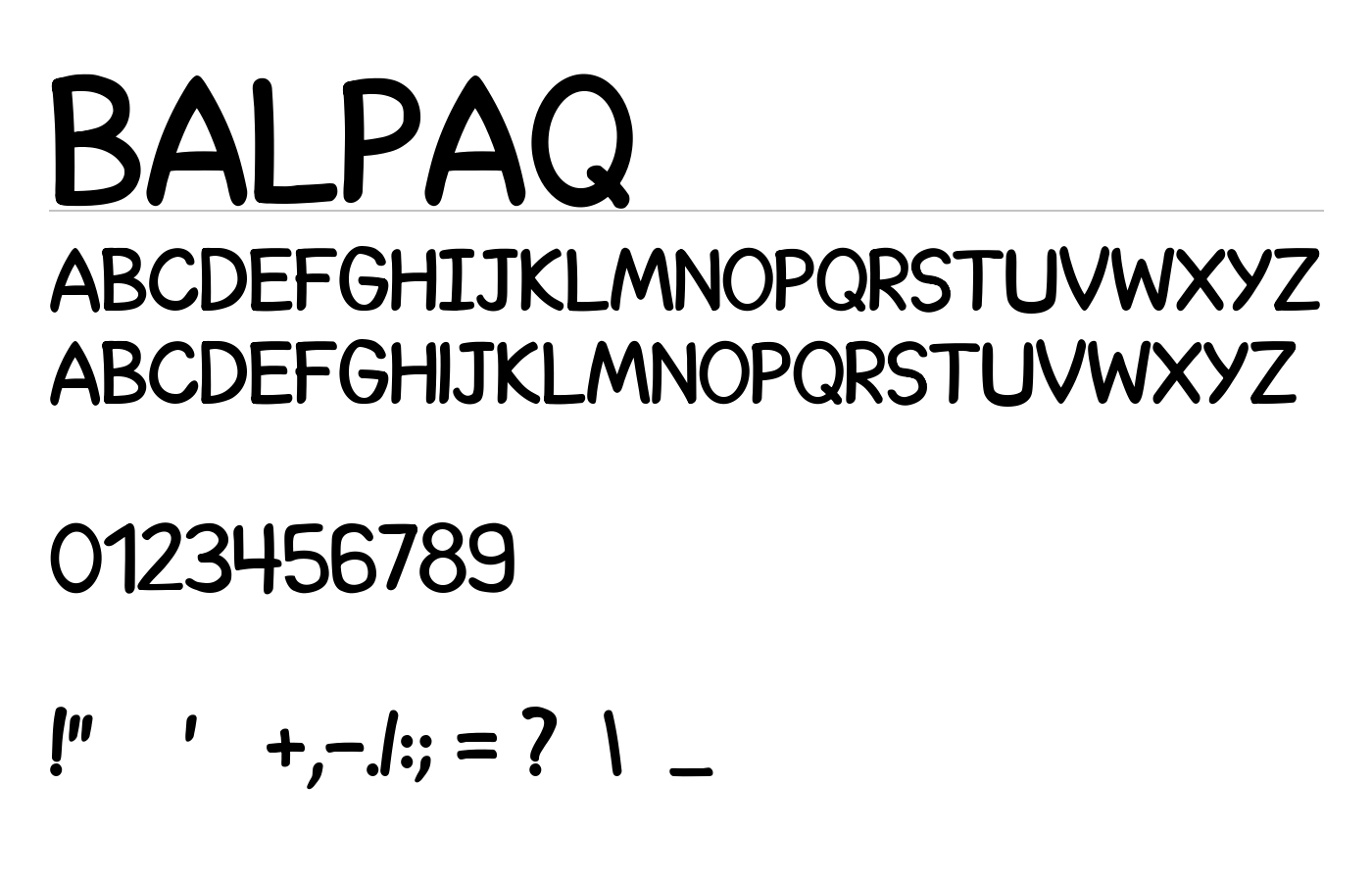
Balpaq is a playful and casual sans serif font with a hand-drawn feel, featuring rounded, slightly irregular letterforms that give it a friendly and approachable personality. Its moderate weight and open spacing make it highly readable, perfect for informal designs like children's books, playful branding, or lighthearted headlines. This font works well where a warm, personal touch is needed without sacrificing clarity or charm.
| Font family | Balpaq Font |
| Designer | Abay Emes |